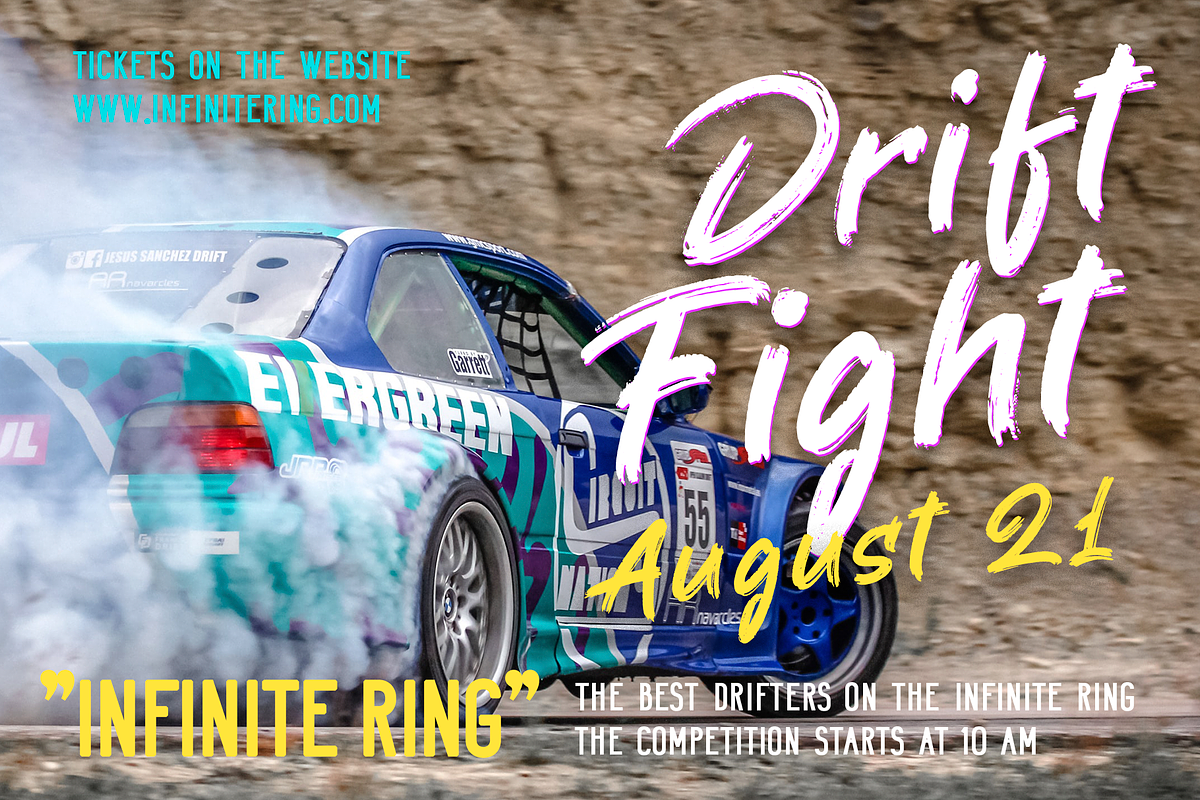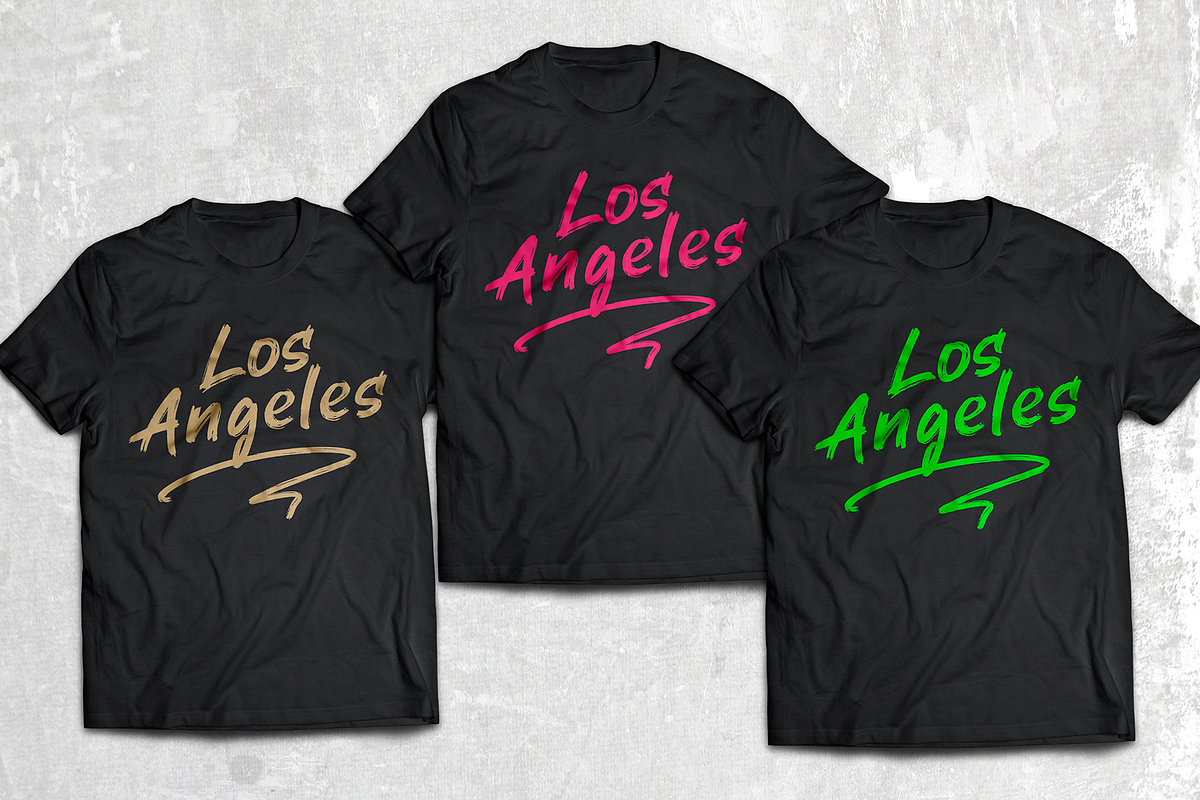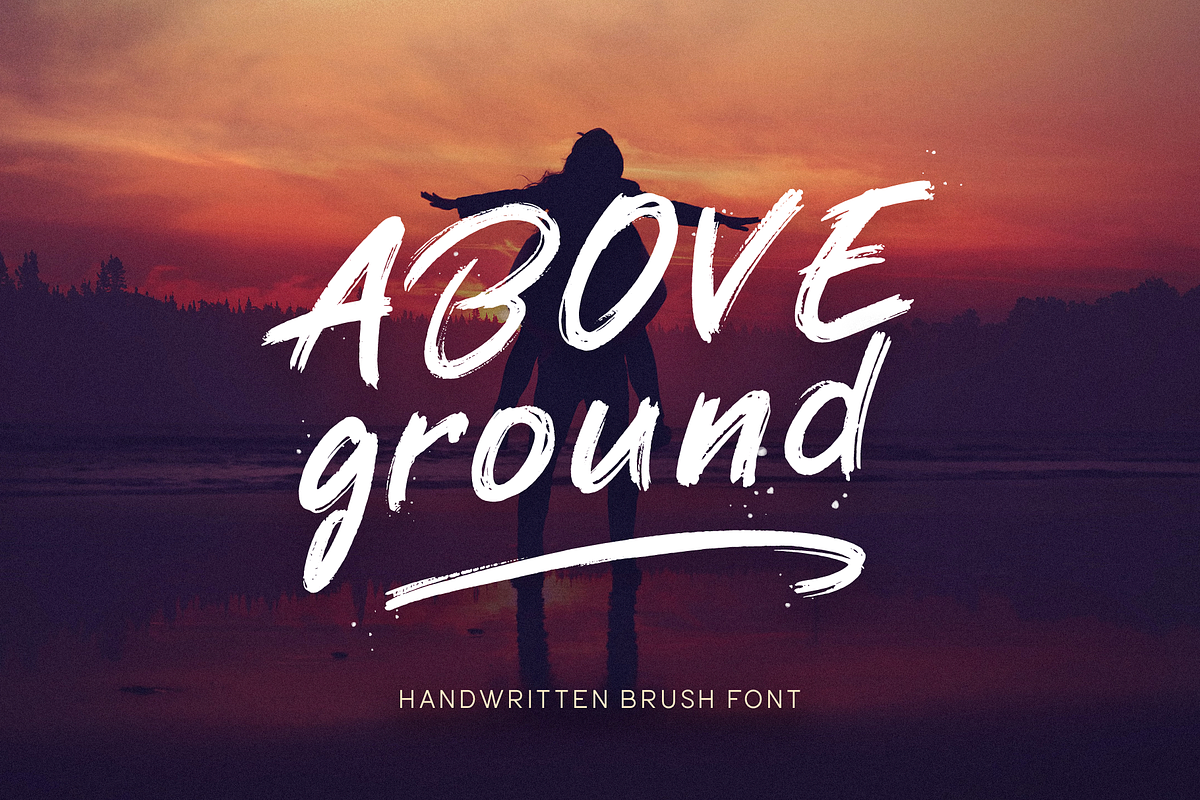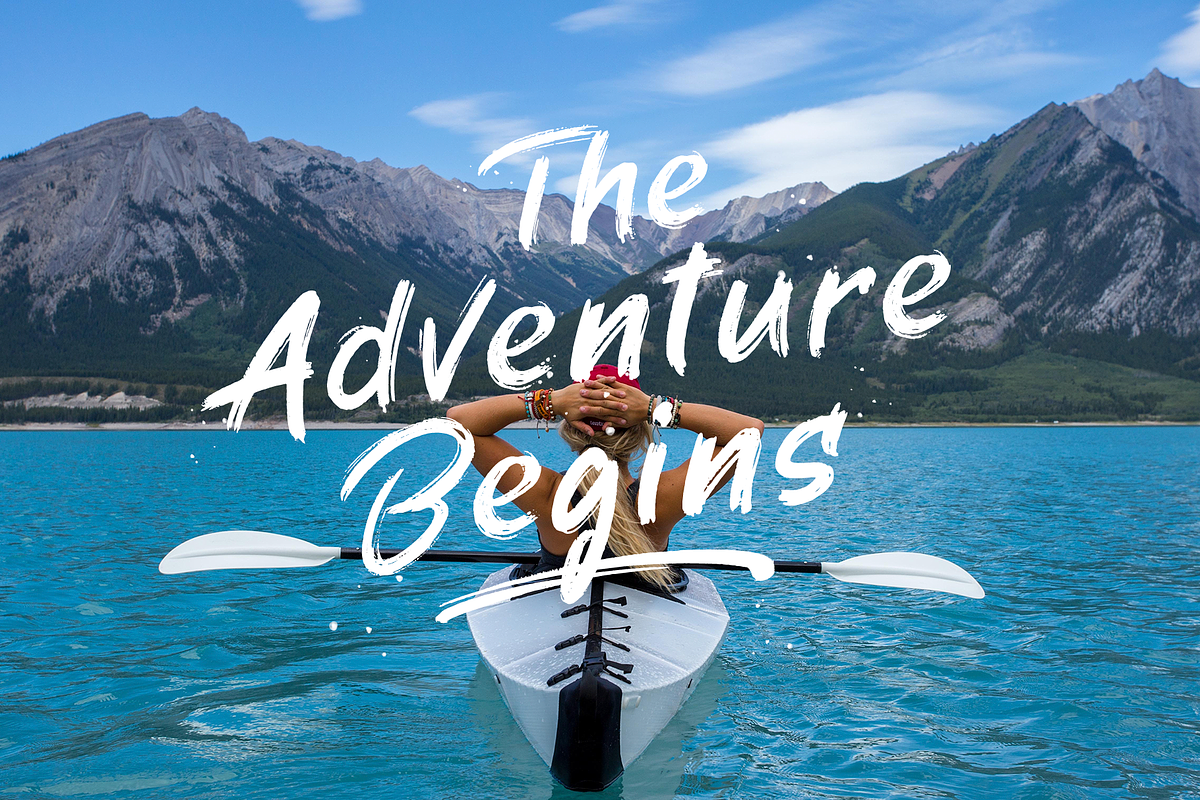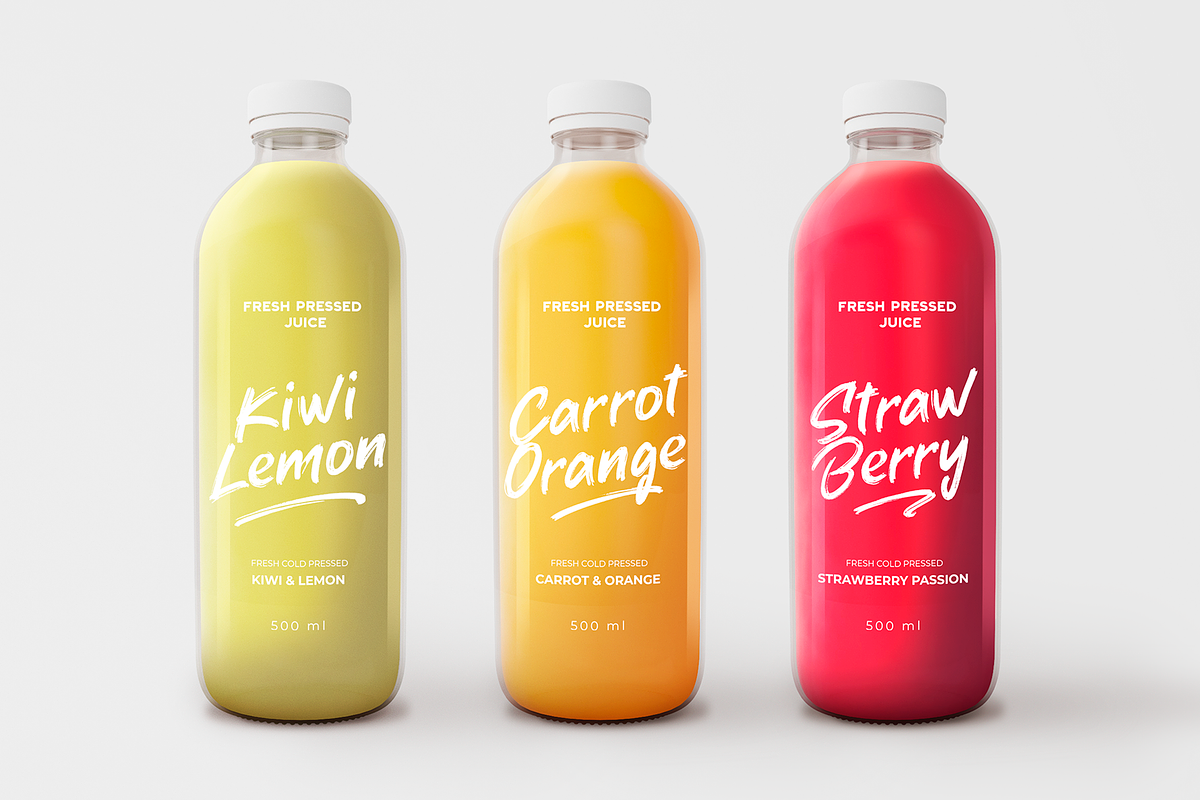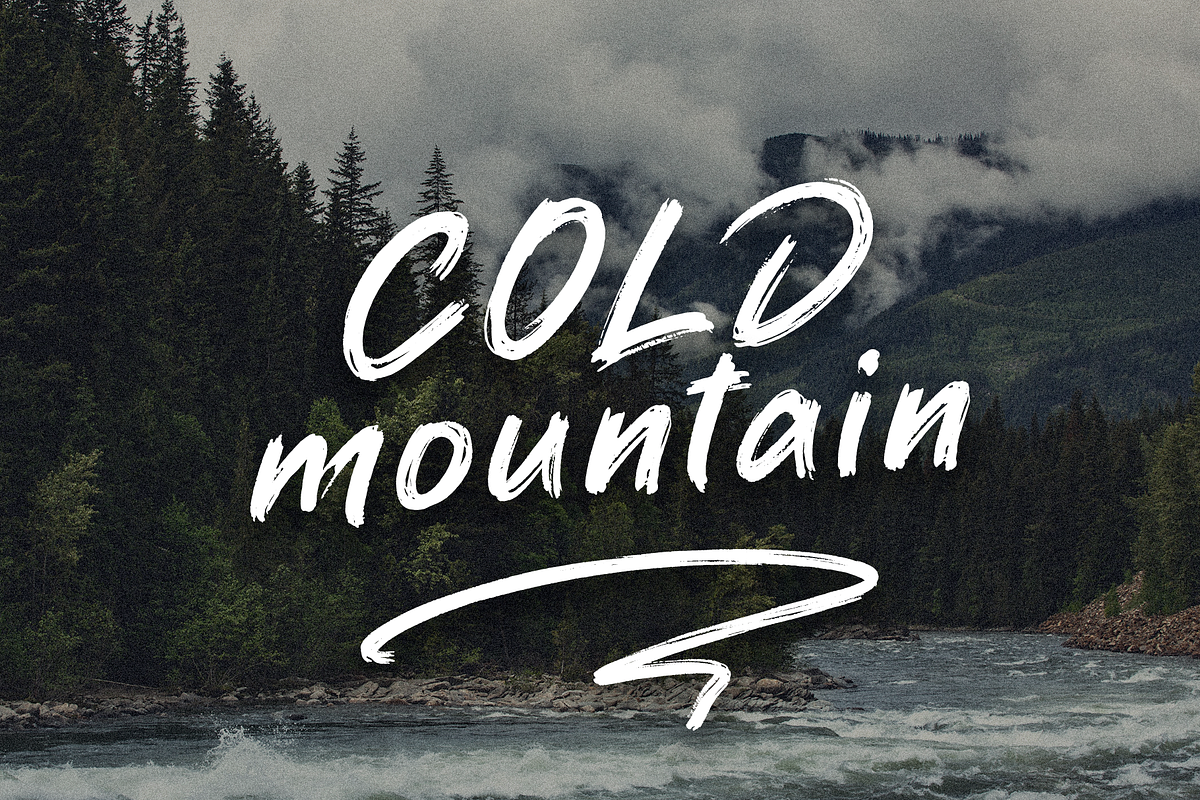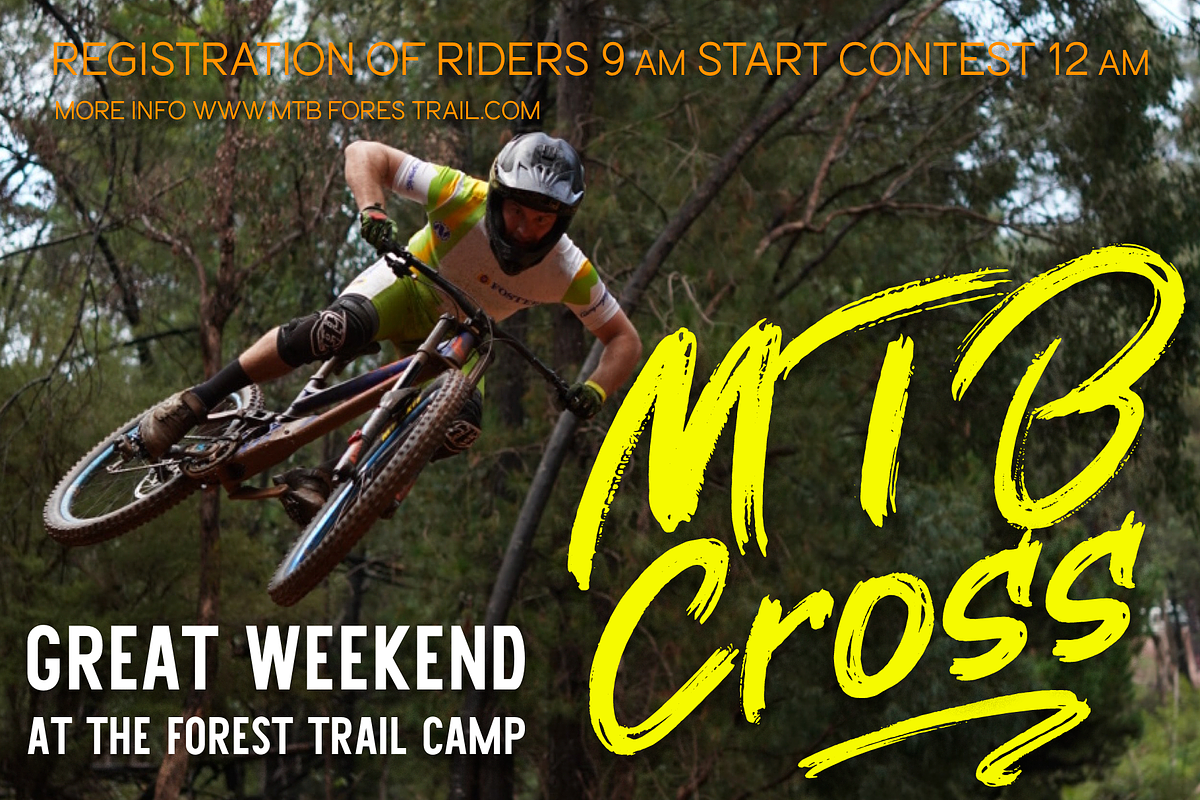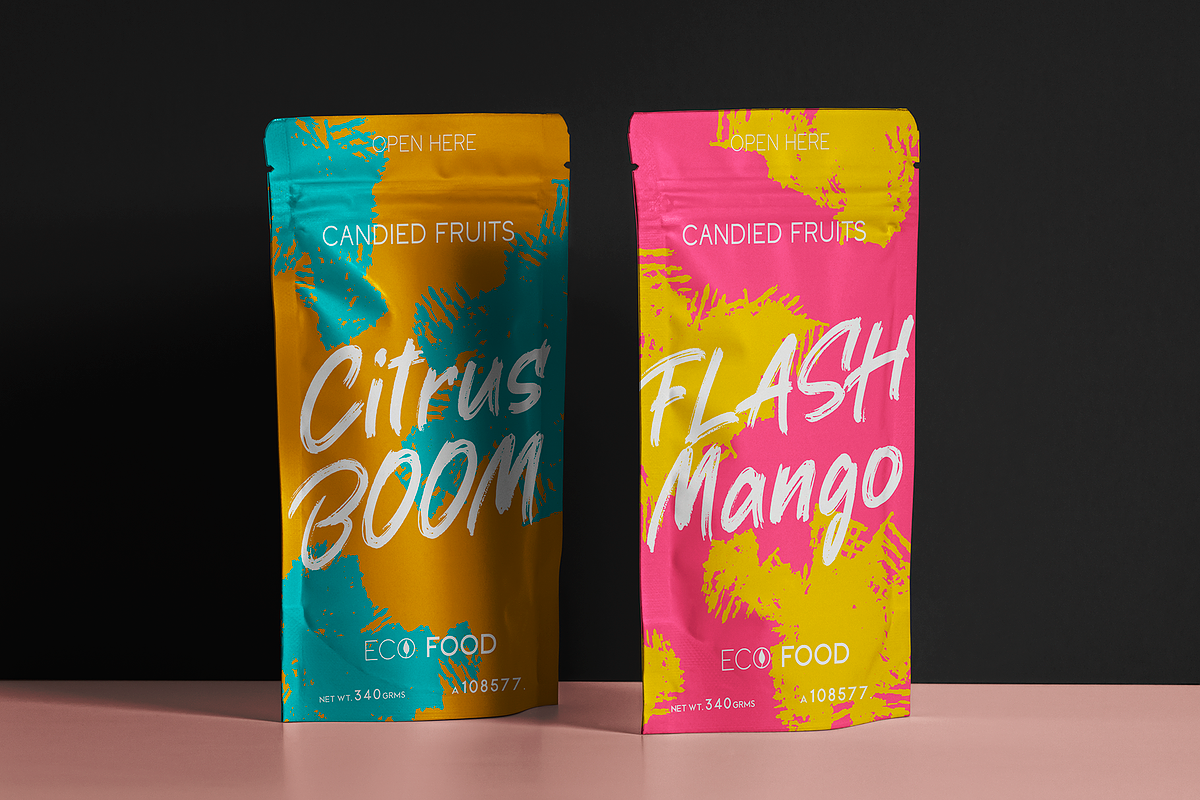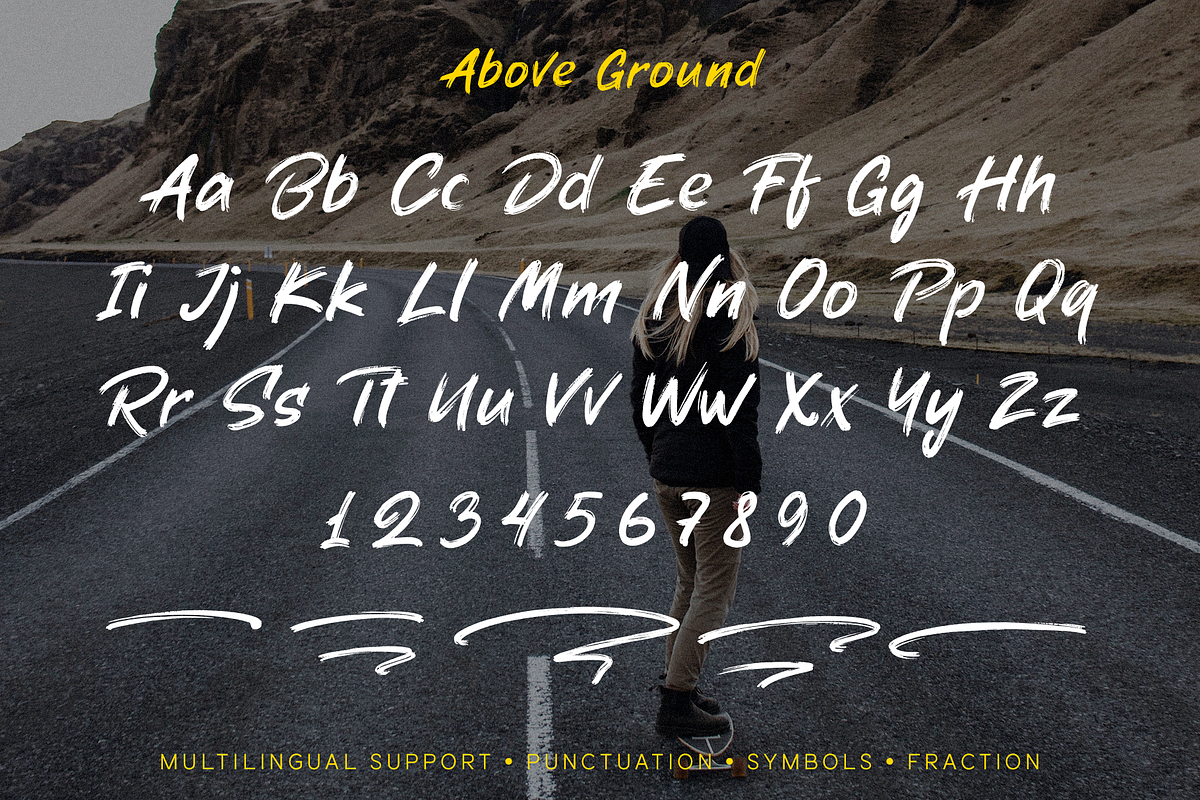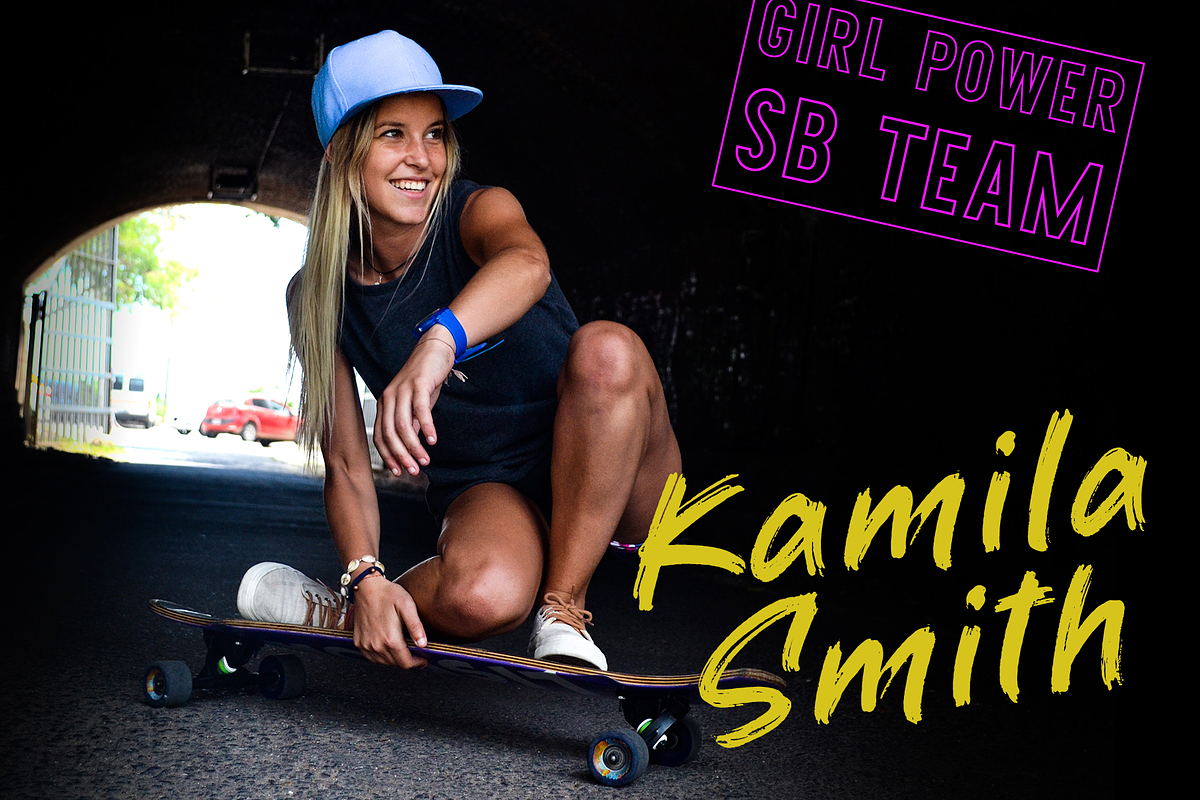
Above Ground
Above Ground this is a handwritten brush font for a wide range of design ideas. It is perfect for creating posters, flyers, integrating blogs, banners, designing social pages, designing T-shirts, magazines, book covers, packaging and much more. This fonts is easy to use and has OpenType features.
Following international symbols support: ÀÁÂÃÄÅĄÇĆÈÉÊËĘÌÍÎÏÐÑŃŁÒÓÔÕÖØÙÚÛÜŚŠŸÝŹŻŽßàáâãäåçèéêëìíîïðñòóôõöøùúûüýÿąćęłńśšźżž
Full alphabet with Uppercase and Lowercase A-z
Numbers, fractions
Punctuation and symbols
Swashes